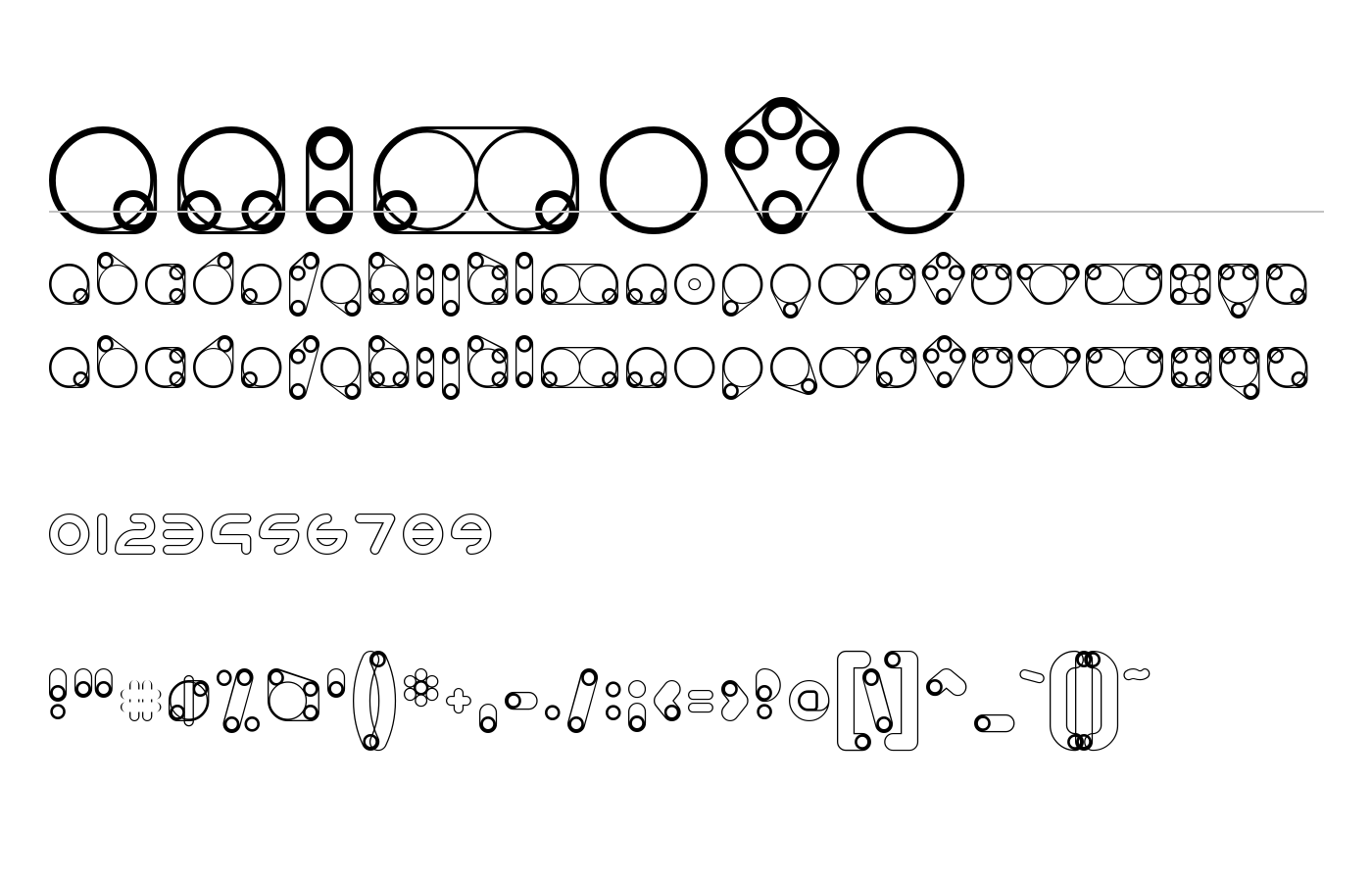
Animoto is a modern, geometric sans serif font characterized by its clean, circular forms and consistent line weight, giving it a light and airy appearance. Its unique letter shapes, formed mainly from overlapping circles, create a playful yet futuristic vibe, making it ideal for contemporary branding, tech projects, and minimalist design work. This font works best in headlines and logos where its distinctive style can stand out and add a creative, innovative touch.
Animoto Font
About Animoto Font
| Designer | Adam Rucki |